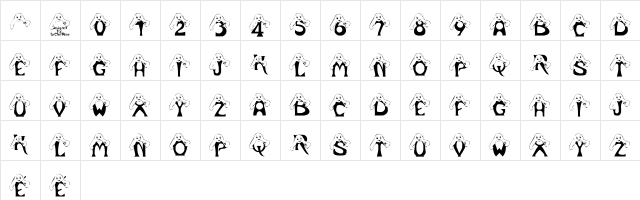
LCR Peek A Boo Regular Font Preview
LCR Peek A Boo Regular
Design Context for LCR Peek A Boo Typeface
LCR Peek A Boo is a composed and adaptable typeface that performs quietly and consistently across a wide range of design contexts.